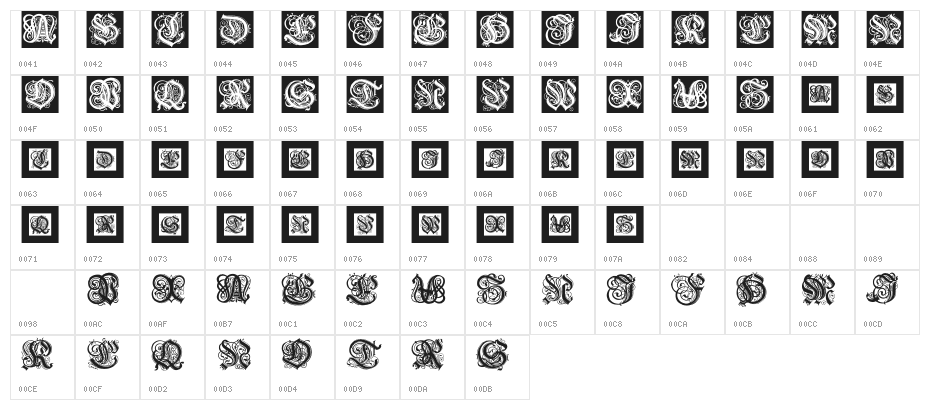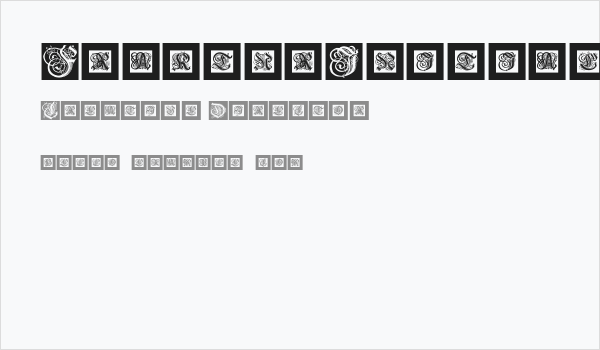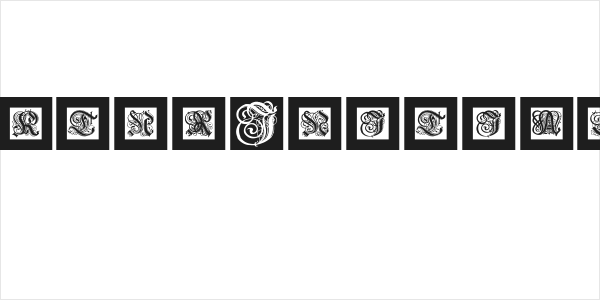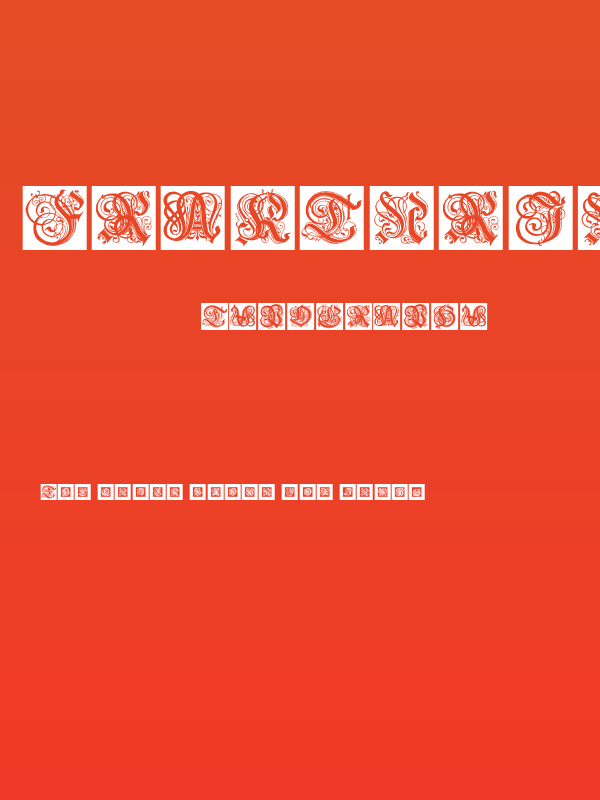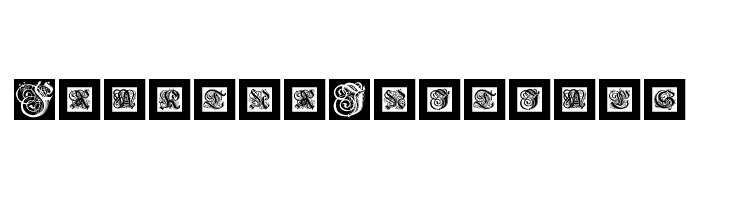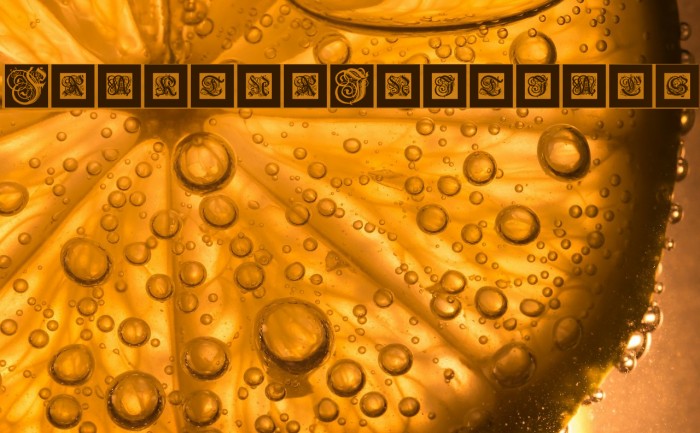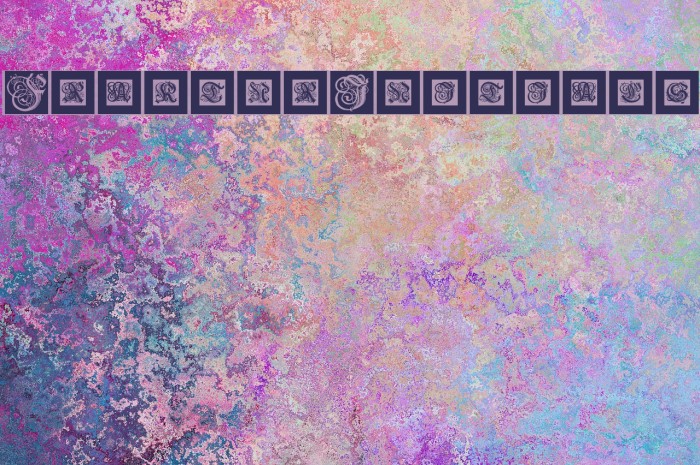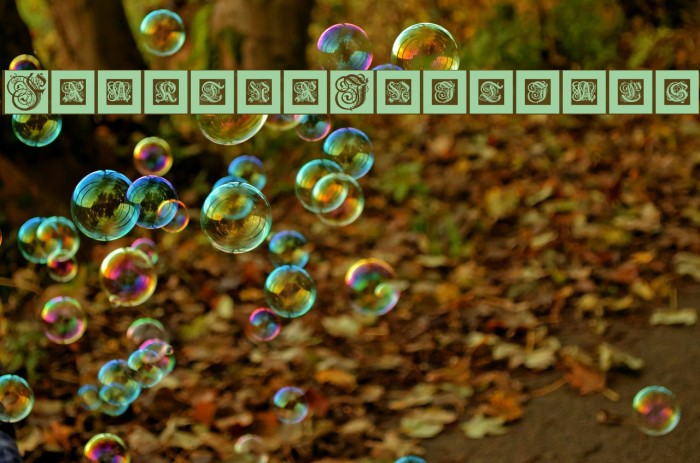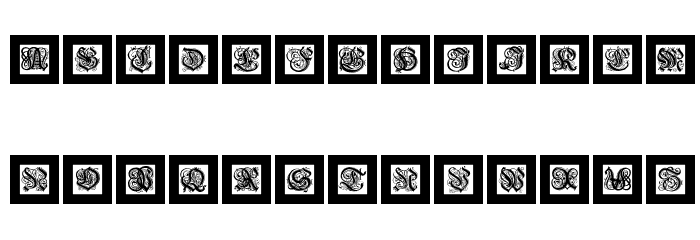
FrakturInitials07 Font
FrakturInitials07 Description
This font is a highly decorative and intricate style, reminiscent of traditional Fraktur script. Each letter is adorned with elaborate flourishes and embellishments, giving it a regal and historic appearance. The characters are enclosed in square frames, enhancing their ornate design. The font features a high level of detail, with each letter crafted to resemble an initial from an illuminated manuscript. This style is characterized by its bold strokes and elaborate serifs, making it stand out as a display typeface.
| Proposed Projects | Ideal for use in historical or fantasy-themed projects, such as book covers, invitations, or branding for luxury products. |